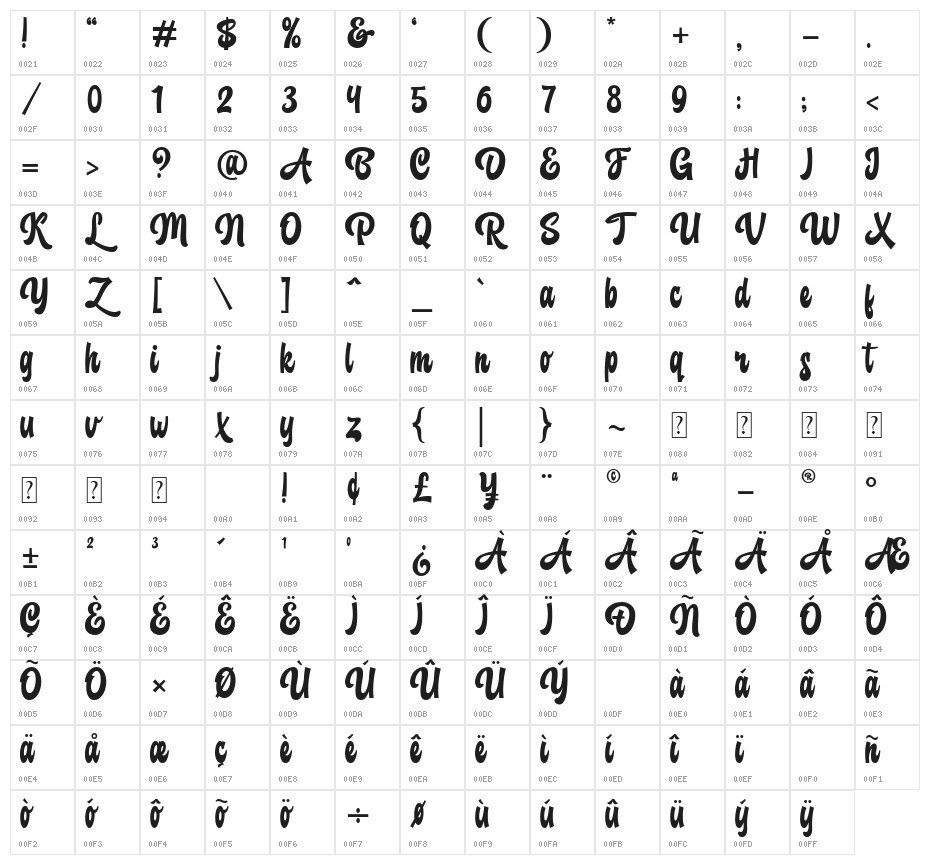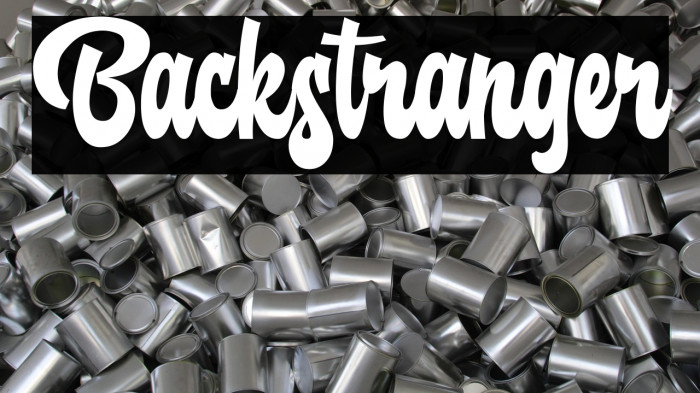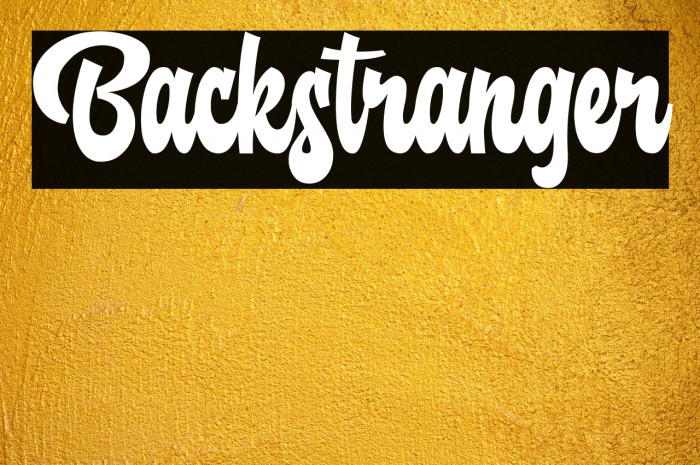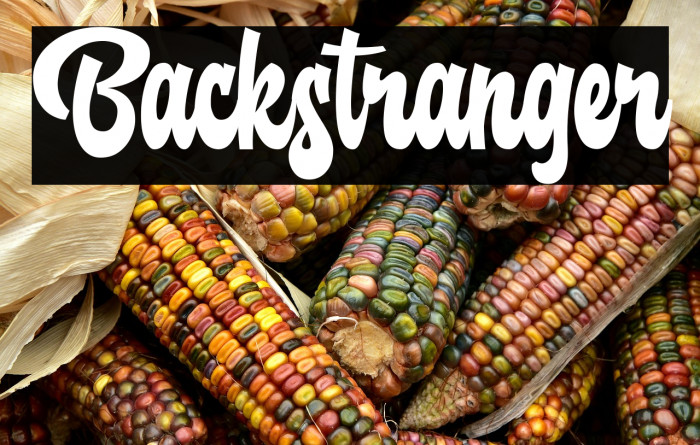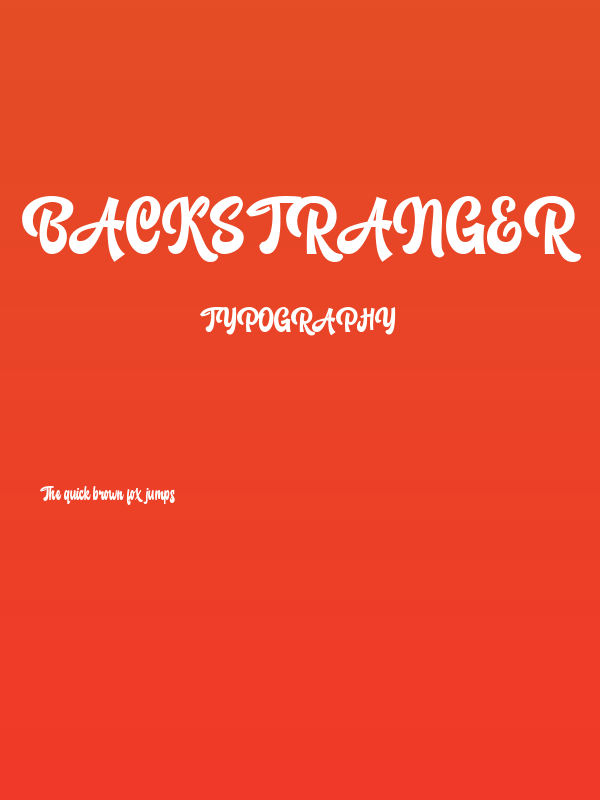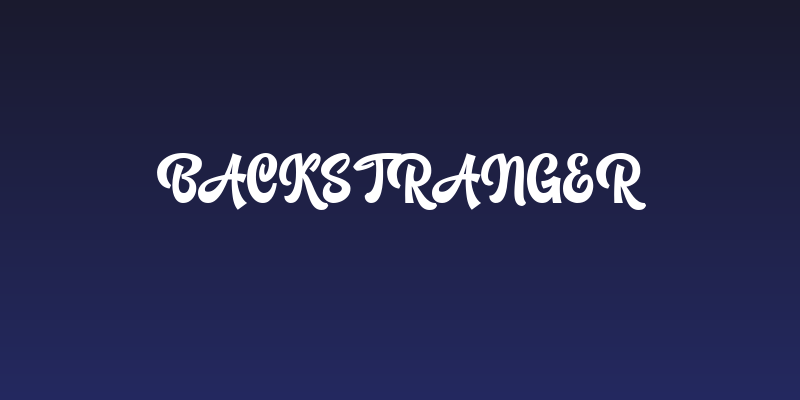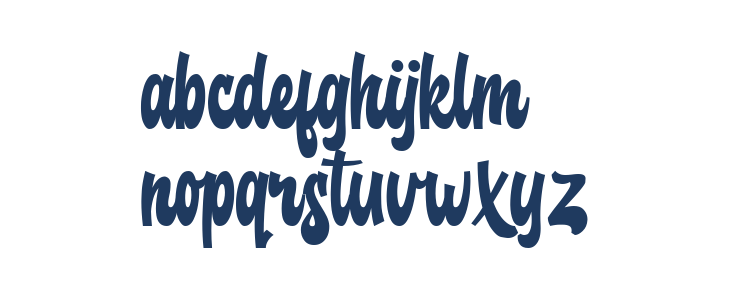
Backstranger Font
Backstranger Description
This font features a bold, dynamic script style with a playful and energetic flair. The uppercase letters are characterized by sweeping curves and flourishes, giving them a sense of movement and elegance. The lowercase letters maintain a consistent flow, with rounded forms and smooth connections between strokes. The numerals are bold and slightly condensed, matching the overall style of the alphabet. Special characters are creatively designed, adding to the font's decorative appeal. This font is perfect for projects that require a lively and expressive touch, such as event invitations, branding, or artistic posters.
| Use Case | Logos, Headlines, Artistic projects |
| Proposed Projects | Ideal for event invitations, branding, artistic posters, and creative designs. |